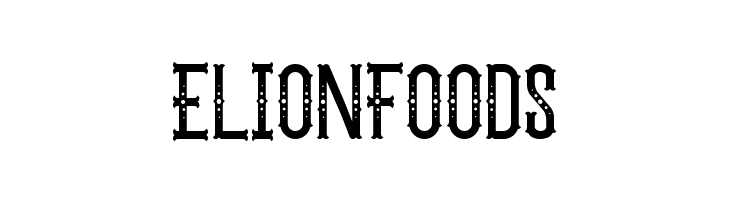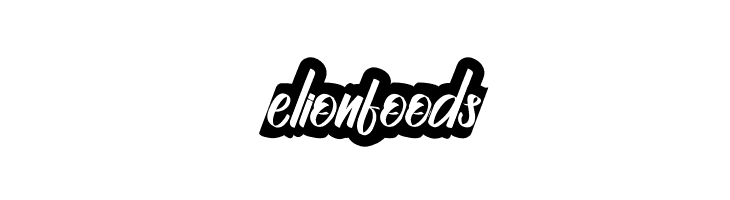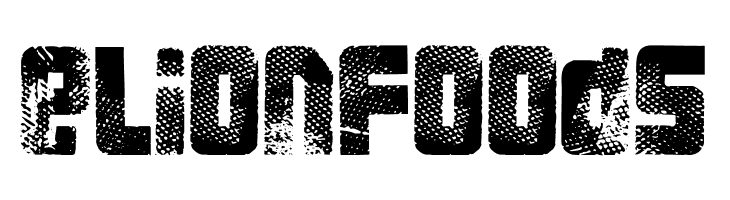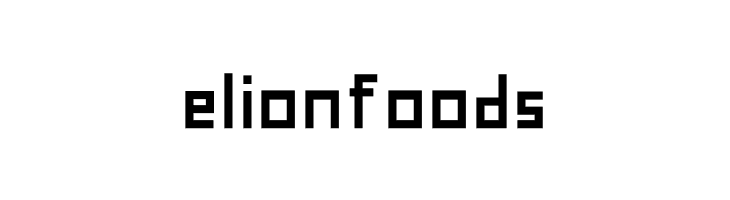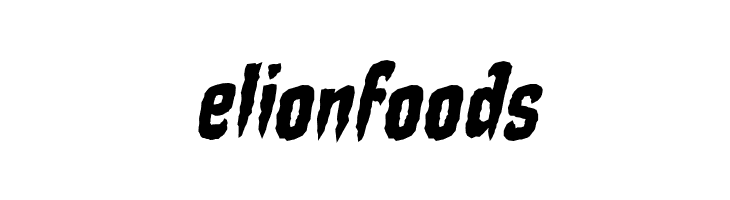
A hieroglyphic, pictorial font mimicking ancient Egyptian script.
A bold, geometric font with a modern and assertive style.
A bold, distressed font with a textured, industrial style.
A bold, geometric font with a modern, angular design.
A bold, jagged, and italic font with a horror-themed aesthetic.
A playful and whimsical font with vintage theatrical flair.